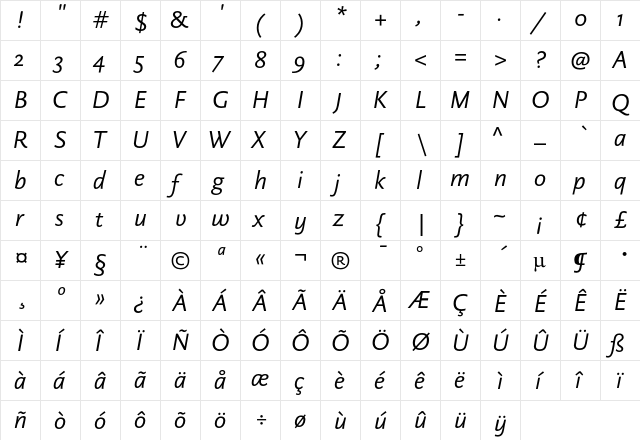
DTL Documenta Sans ST Italic
Design Context for DTL Documenta Typeface
DTL Documenta takes a measured approach to typography — its balanced proportions and neutral character make it a reliable workhorse for both digital and print work. The slanted form adds forward momentum and visual energy.
Pro Tip: Use DTL Documenta for emphasis, pull quotes, and subheadings where its slanted energy can add rhythm to the layout.